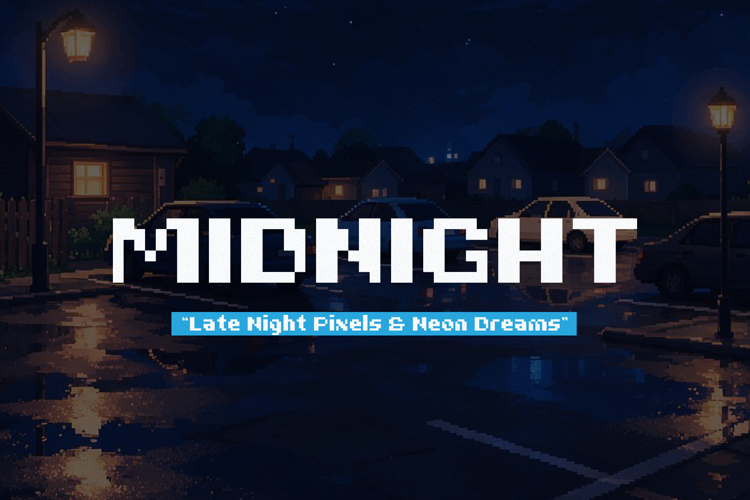
Rainy Pixelo Font
Rainy Pixelo | Pixelated Font, is suitable for any projects such as: logos, branding projects, homeware designs, product packaging, mugs, quotes, posters, shopping bags, t-shirts, book covers, name card, invitation cards, greeting cards, label, photography, watermark, special events, and all your other lovely projects that need a Pixelated f taste.